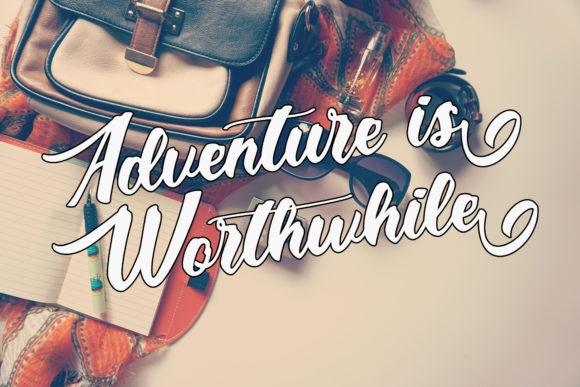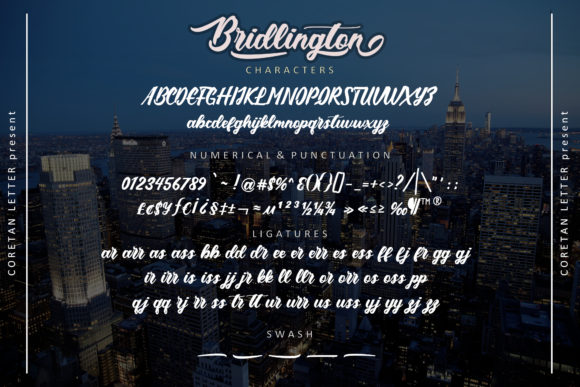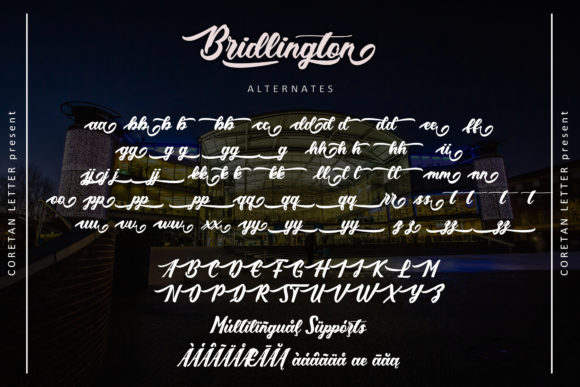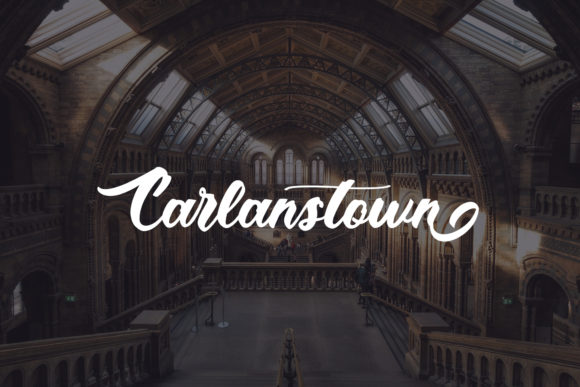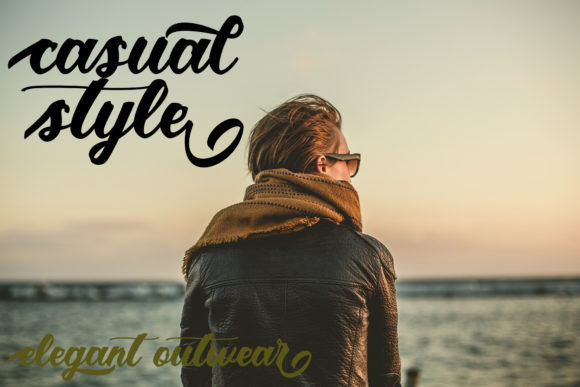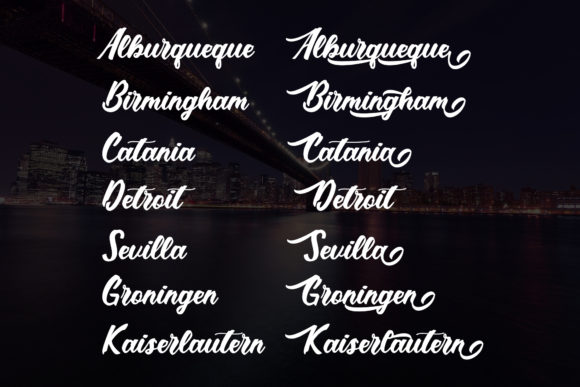
Bridlington Font: Elevate Your Designs with a Stylish and Dynamic Touch
In the world of typography, fonts play a crucial role in conveying the tone and personality of a design. For designers and crafters looking to add a touch of nostalgia and sophistication to their projects, the Bridlington font is an excellent choice. This thick lettered and cursive handwritten font is specifically crafted to give your headlines and logotype projects a stylish and dynamic touch.
What is Bridlington Font?
Bridlington font is a unique and eye-catching typeface that exudes confidence and strength. Its thick lettering and cursive handwritten style make it perfect for creating bold and attention-grabbing headlines, logos, and titles. The font’s dynamic and strong appearance makes it ideal for designers who want to add a touch of personality to their designs.
Key Features of Bridlington Font
- Thick Lettering: The font’s thick lettering gives it a bold and sturdy appearance, making it perfect for headlines and titles.
- Cursive Handwritten Style: The font’s cursive handwritten style adds a touch of elegance and sophistication to any design.
- Dynamic and Strong: The font’s dynamic and strong appearance makes it ideal for designers who want to create bold and attention-grabbing designs.
- Nostalgic Character: The font’s classic and timeless design adds a touch of nostalgia to any design, making it perfect for vintage-inspired projects.
Uses of Bridlington Font
Bridlington font is a versatile typeface that can be used in a variety of design projects, including:
- Headlines and Titles: The font’s bold and attention-grabbing appearance makes it perfect for headlines and titles.
- Logos and Branding: The font’s unique and eye-catching design makes it ideal for logos and branding projects.
- Posters and Flyers: The font’s bold and dynamic appearance makes it perfect for posters and flyers.
- Packaging Design: The font’s classic and timeless design makes it ideal for packaging design projects.
Benefits of Using Bridlington Font
Using Bridlington font in your design projects offers several benefits, including:
- Unique and Eye-Catching Design: The font’s unique and eye-catching design sets it apart from other typefaces.
- Improved Readability: The font’s bold and clear design makes it easy to read, even at small sizes.
- Time-Saving: The font’s versatility and wide range of uses make it a time-saving solution for designers.
- Professional Look: The font’s classic and timeless design gives any design a professional and polished look.
Tips for Using Bridlington Font
To get the most out of Bridlington font, follow these tips:
- Use it for Headlines and Titles: The font’s bold and attention-grabbing appearance makes it perfect for headlines and titles.
- Experiment with Colors: The font’s versatility makes it easy to use with a wide range of colors and design styles.
- Pair it with Other Fonts: The font’s unique design makes it easy to pair with other fonts to create a unique and eye-catching design.
In conclusion, Bridlington font is a stylish and dynamic typeface that can add a touch of sophistication and nostalgia to any design project. Its unique and eye-catching design, versatility, and wide range of uses make it an excellent choice for designers and crafters looking to elevate their designs. Whether you’re creating headlines, logos, or packaging design, Bridlington font is a great choice for any project.